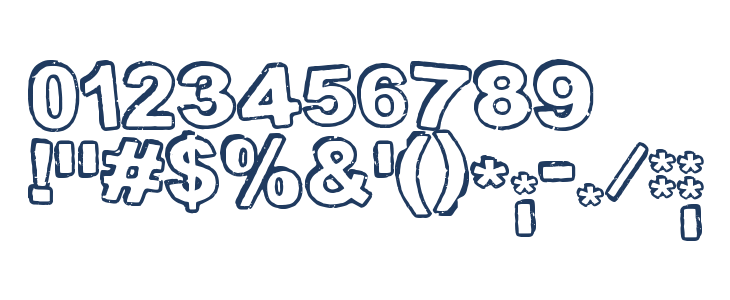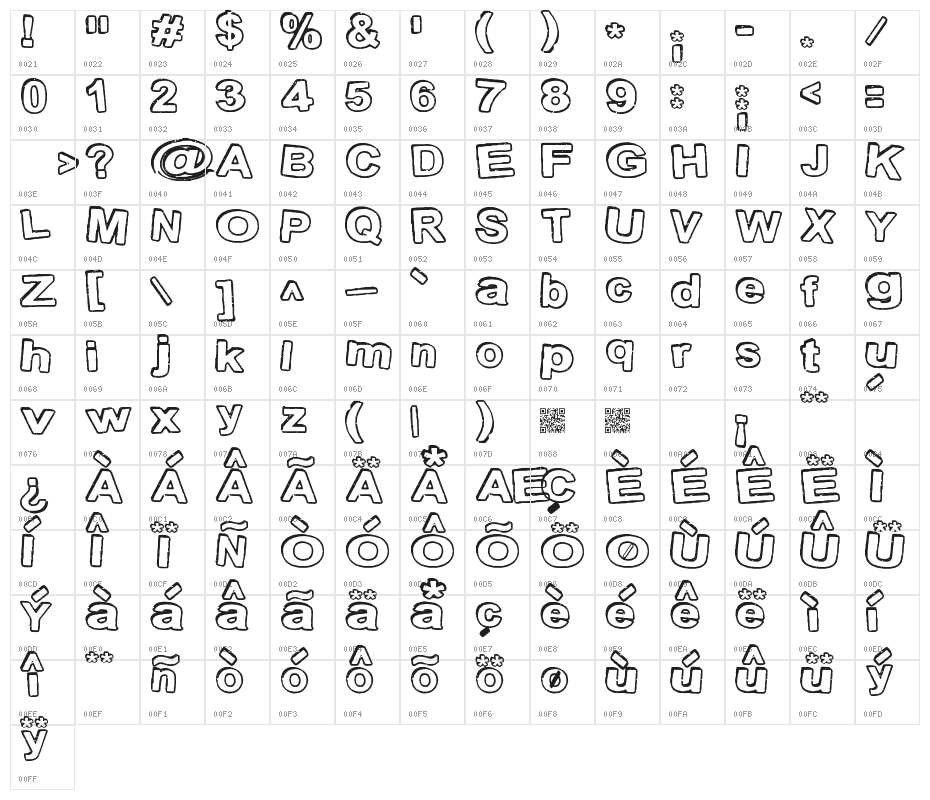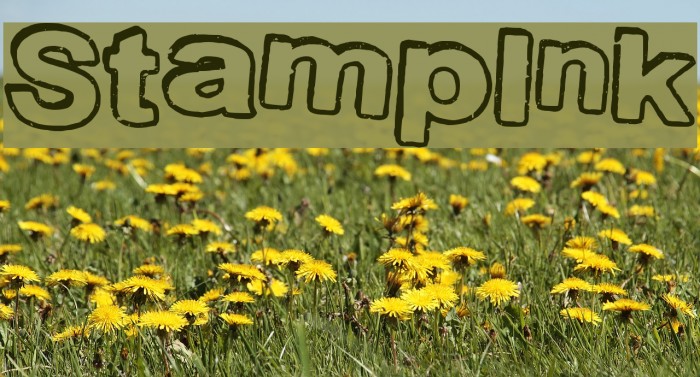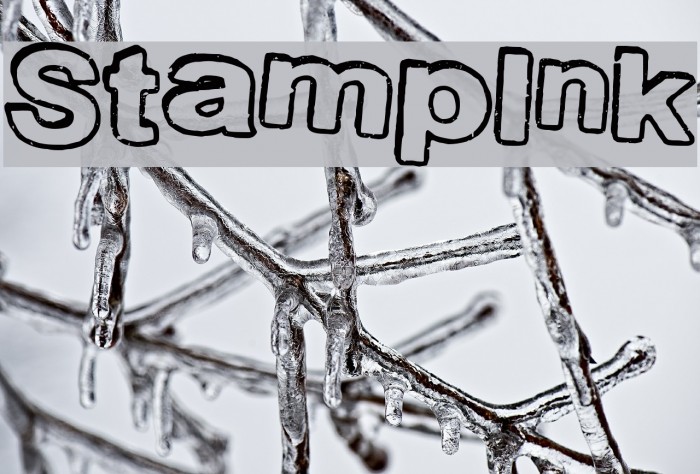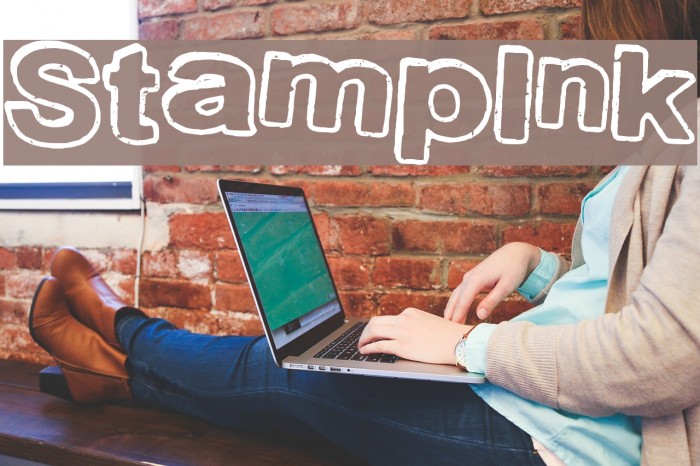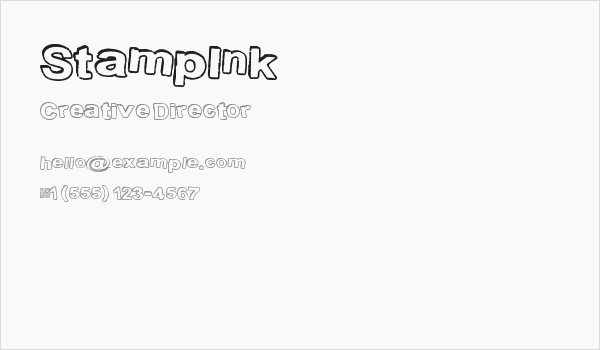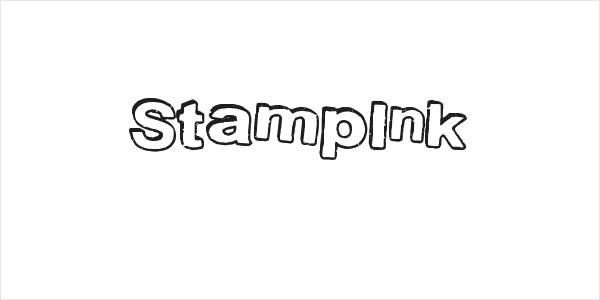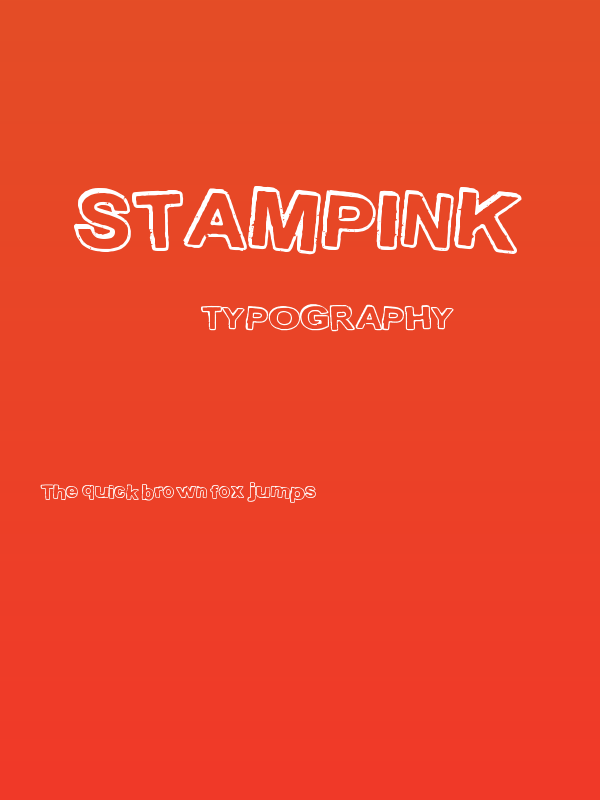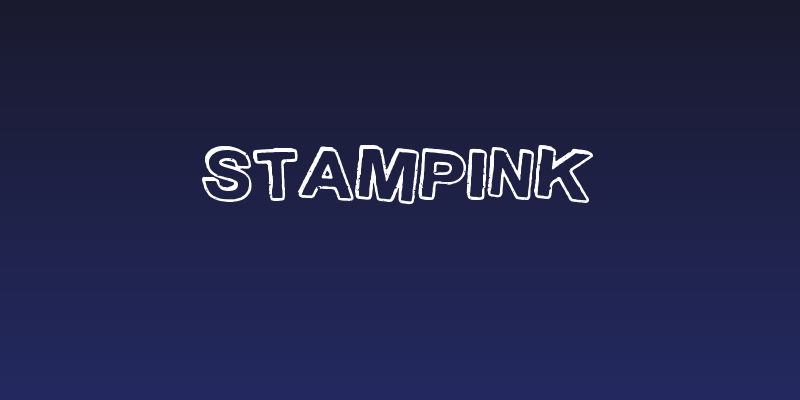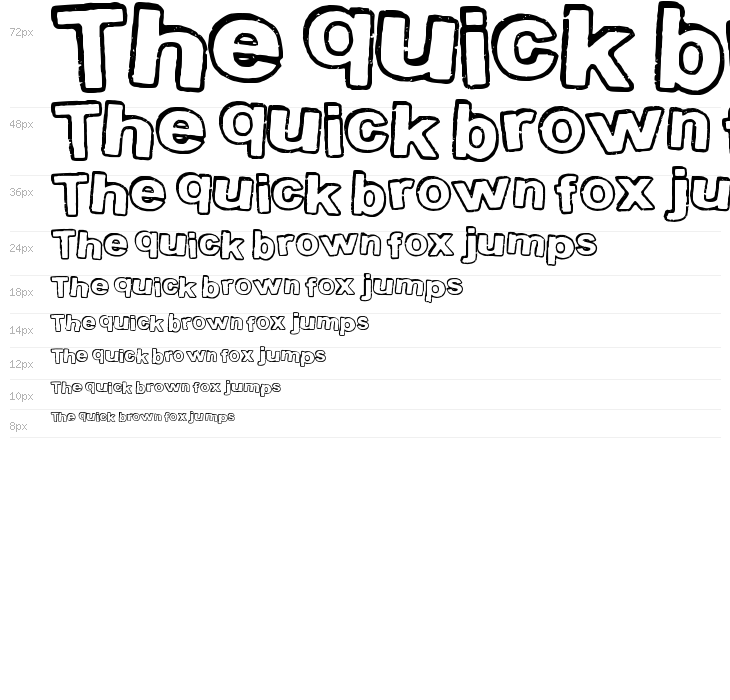
StampInk Font
StampInk Description
This font features a playful and bold design with a hand-drawn aesthetic. Each character is outlined with a thick, uneven stroke, giving it a stamped or inked appearance. The letters are uppercase and lowercase, with numbers and a variety of special characters. The style is reminiscent of casual, artistic handwriting, making it ideal for projects that require a fun and informal touch. The font's unique outline effect adds a layer of depth and texture, making it stand out in any design.
| Overall Style | Playful, Artistic |
| Proposed Projects | Ideal for children's books, playful branding, event posters, and creative invitations. |